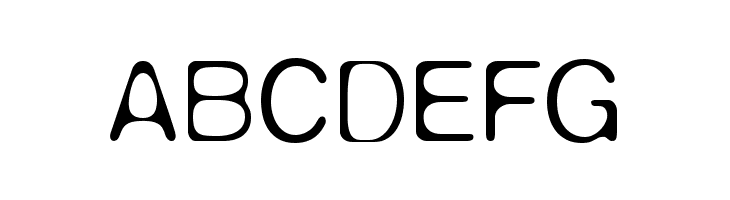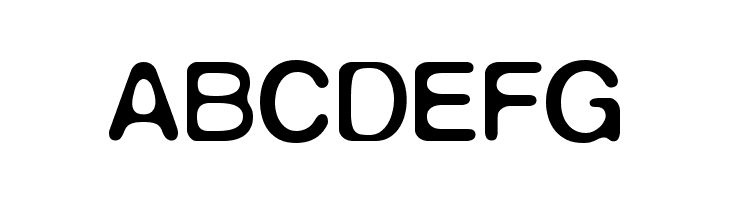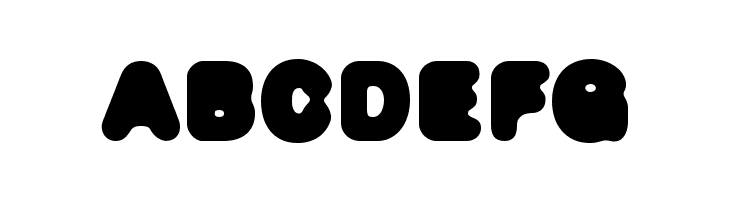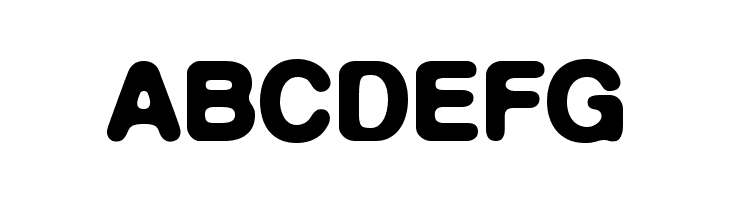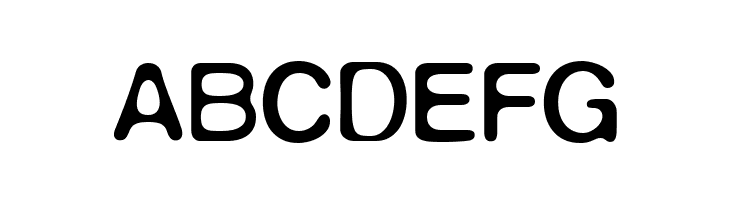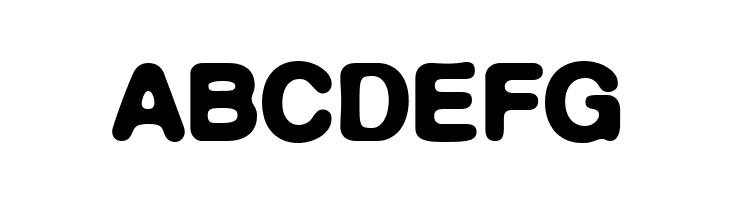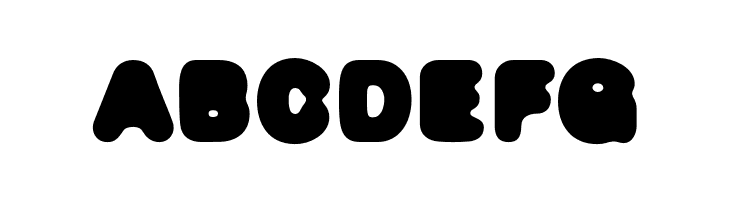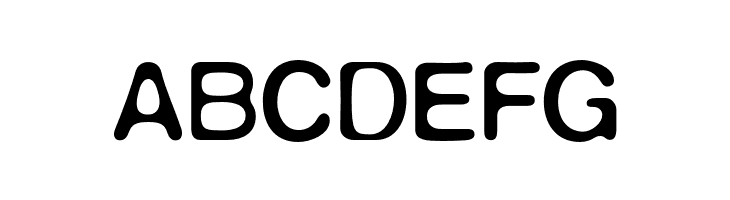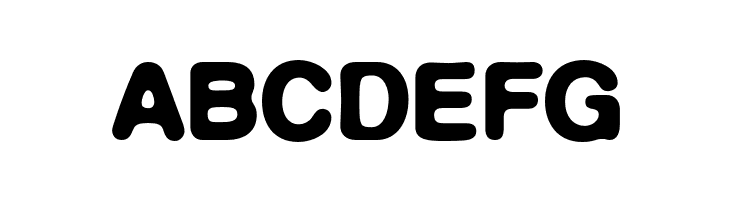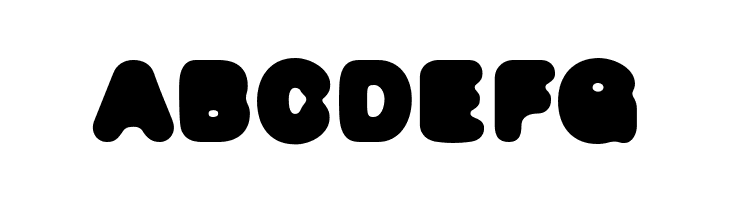
DeFonte-DemiGrasreduit Font
Font by ingoFonts. http://www.ingofonts.de
A bold, rounded font with a playful and approachable style.
DeFonteDemiGras Font
Font by Ingo Zimmermann - www.ingofonts.com
A bold, rounded font with a playful and approachable style.
DeFonteNormale Font
Font by Ingo Zimmermann - www.ingofonts.com
A modern, rounded sans-serif font with excellent readability and a friendly appearance.
DeFonte-Normalereduit Font
Font by ingoFonts. http://www.ingofonts.de
A clean, rounded sans-serif font with smooth curves and uniform strokes.
DeFonteLeger Font
Font by Ingo Zimmermann - www.ingofonts.com
A modern, rounded sans-serif font with a sleek and minimalist design.
DeFonte-Legerreduit Font
Font by ingoFonts. http://www.ingofonts.de
A modern, rounded font with smooth curves and balanced spacing.
DeFonte Reduced Normale Font
A rounded, modern font with smooth curves and consistent stroke width.
DeFonte Reduced DemiGras Font
A bold, rounded font with a playful and modern style.
DeFonteGros Font
Font by Ingo Zimmermann - www.ingofonts.com
A playful, bold font with thick, rounded characters and a bubbly appearance.
DeFonte-Grosreduit Font
Font by ingoFonts. http://www.ingofonts.de
A bold, playful font with rounded, bubble-like characters and a decorative style.
DeFonte Reduced Normale Font
A rounded, smooth font with uniform strokes and a friendly appearance.
DeFonte Reduced Leger Font
A modern, rounded font with consistent stroke width and a playful aesthetic.
DeFonte Reduced DemiGras Font
A bold, rounded font with a playful and approachable style.
DeFonte Reduced Gros Font
A bold, rounded font with a playful and inviting design.
DeFonte Reduced Leger Font
A modern, rounded font with consistent stroke width and friendly appearance.
DeFonte Reduced Gros Font
A bold, rounded font with a playful and bubbly style.